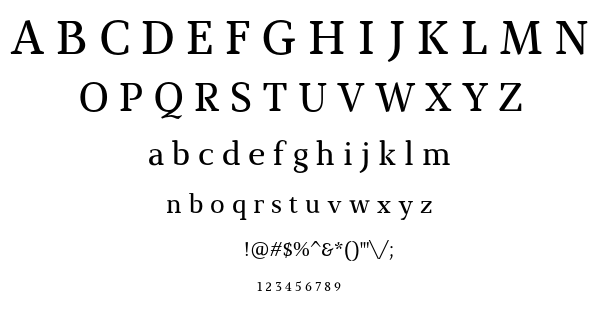
Marta. Eclectic, accidental-text font with wedge serifs. 3 inscription: normal, bold and italic vertically. Italic version can use return as a separate font, ornamental and expressive.